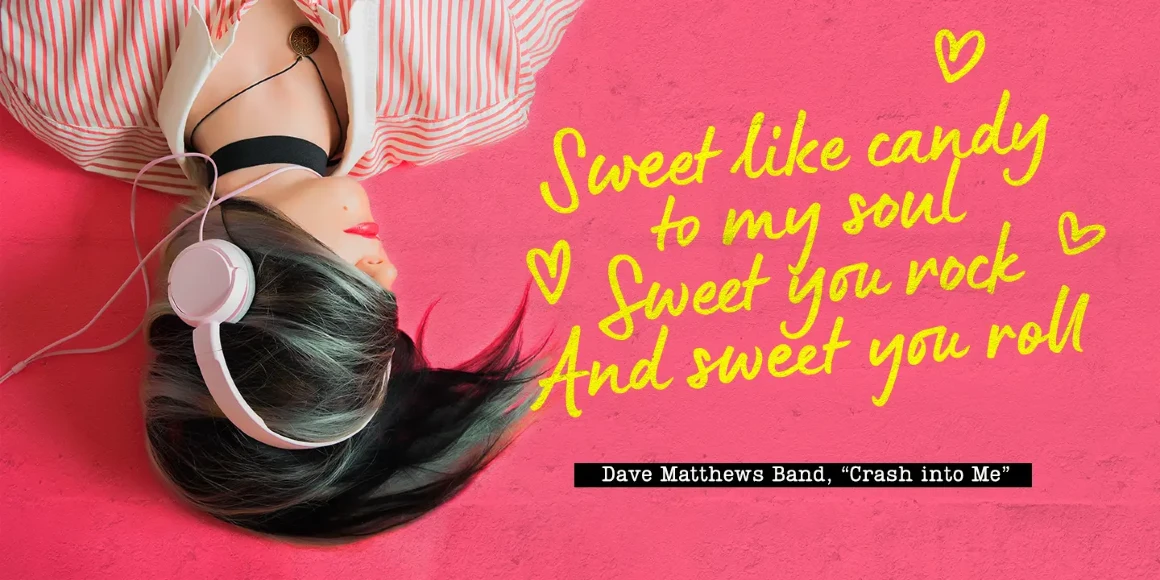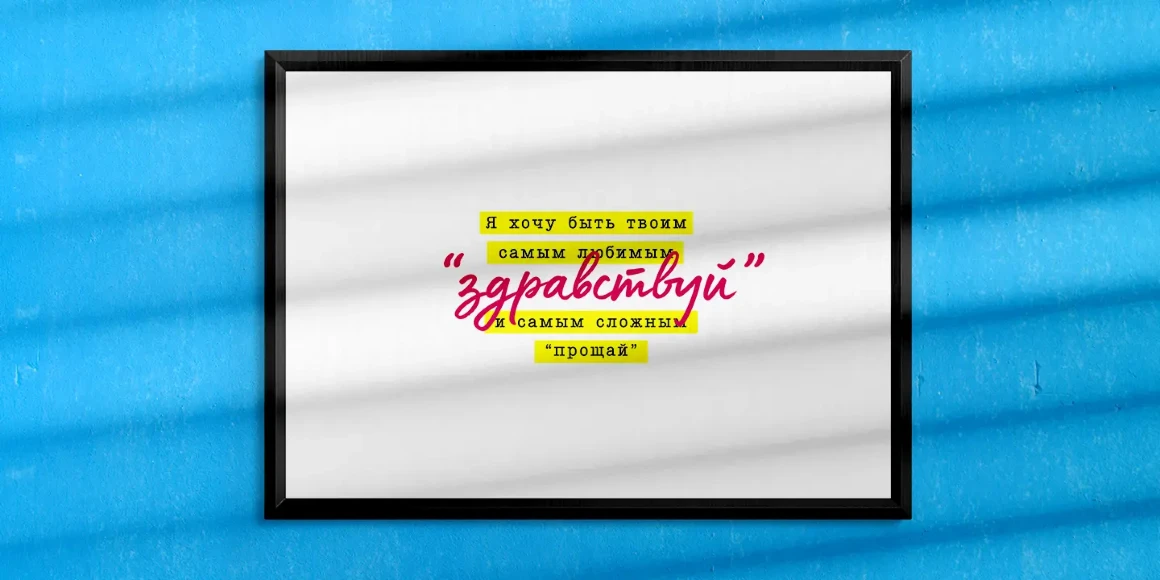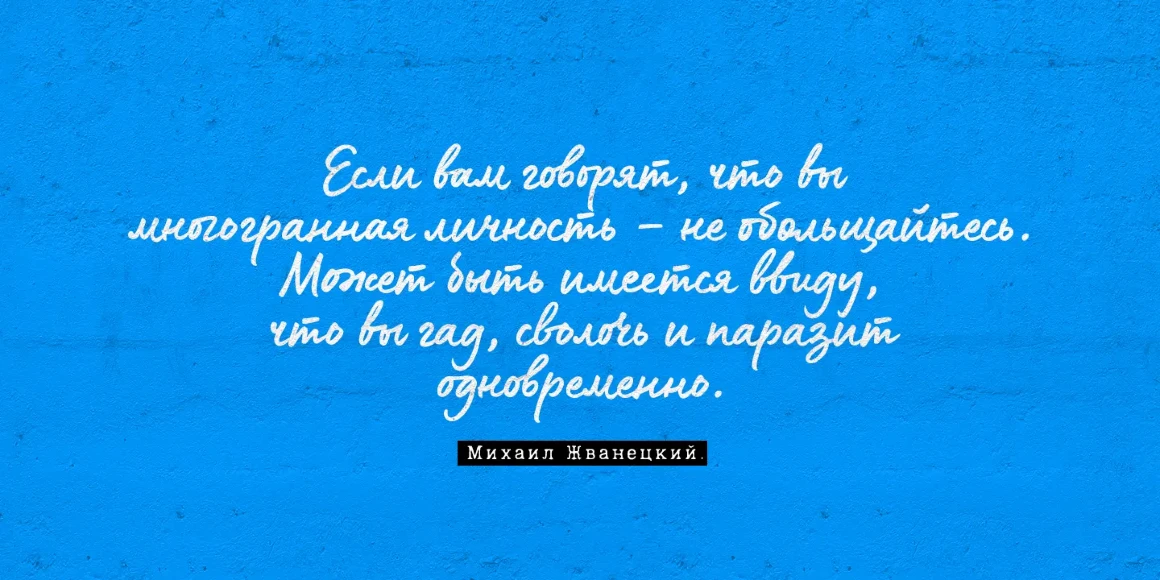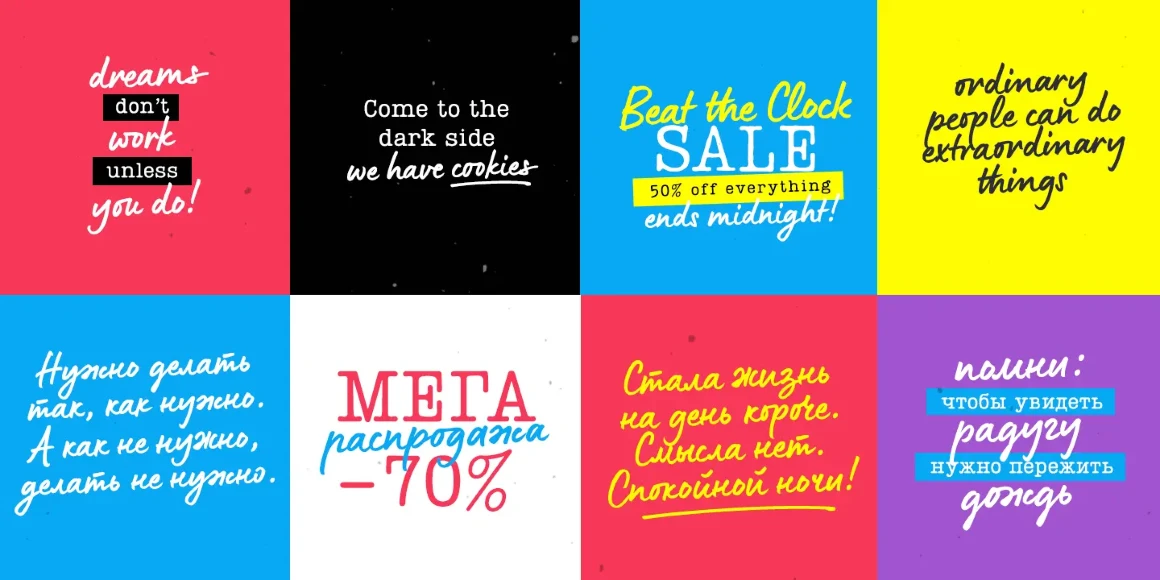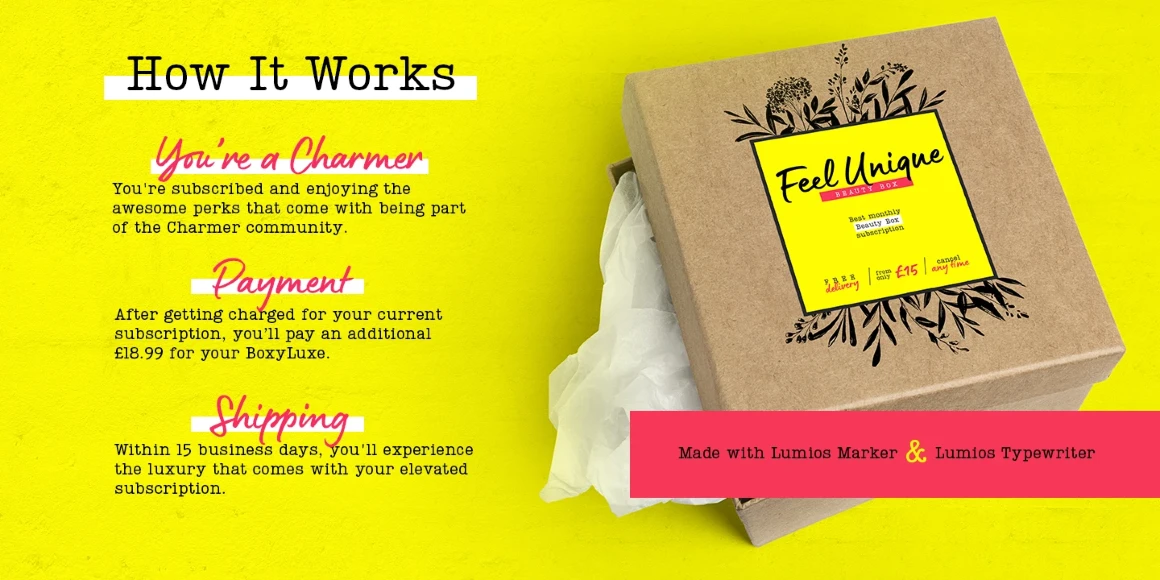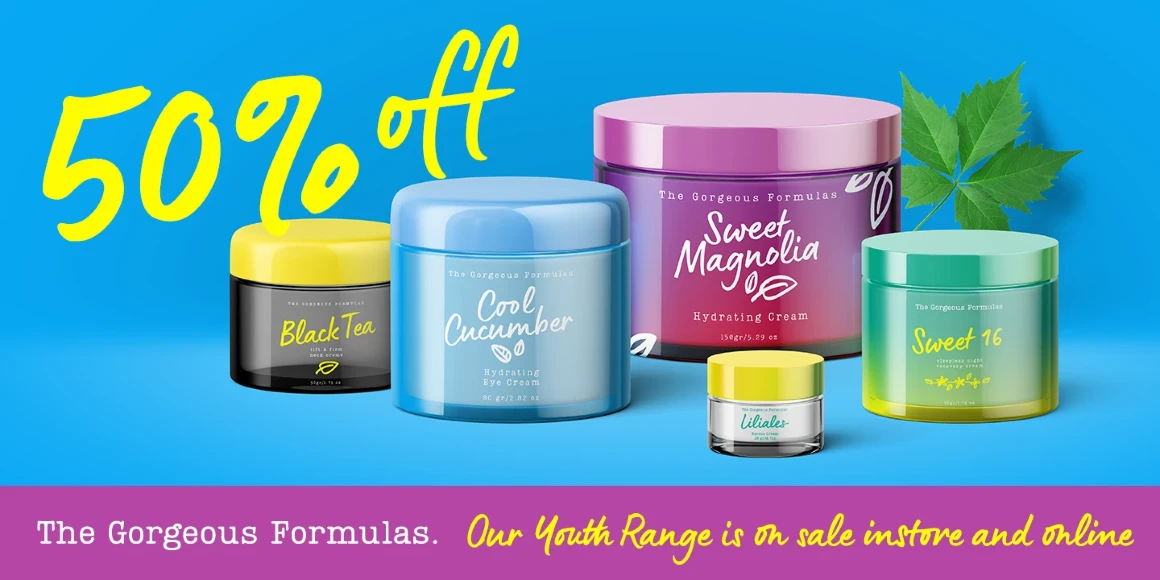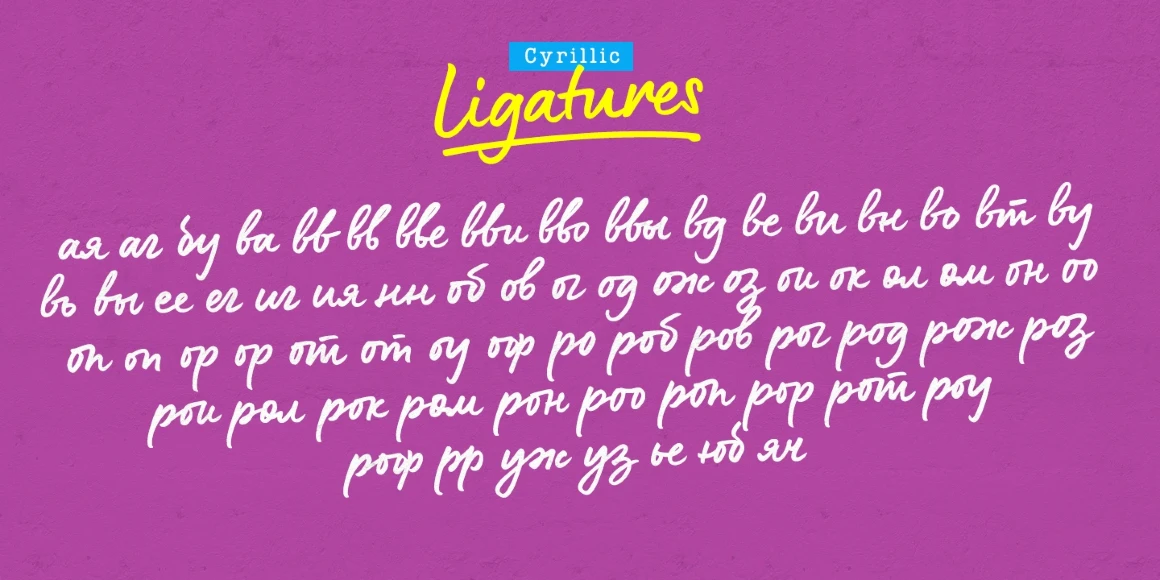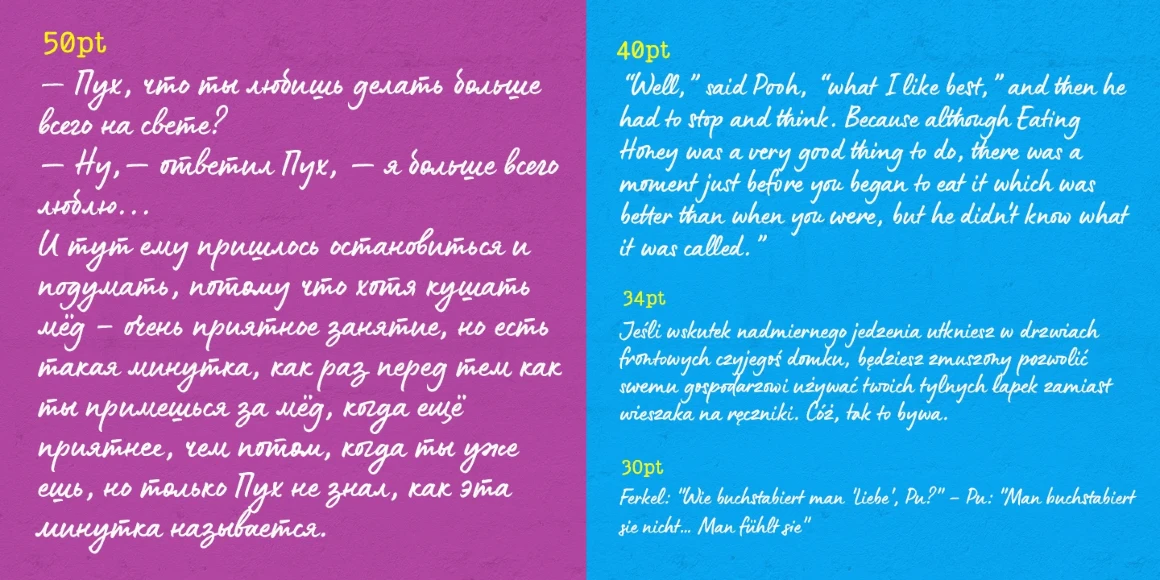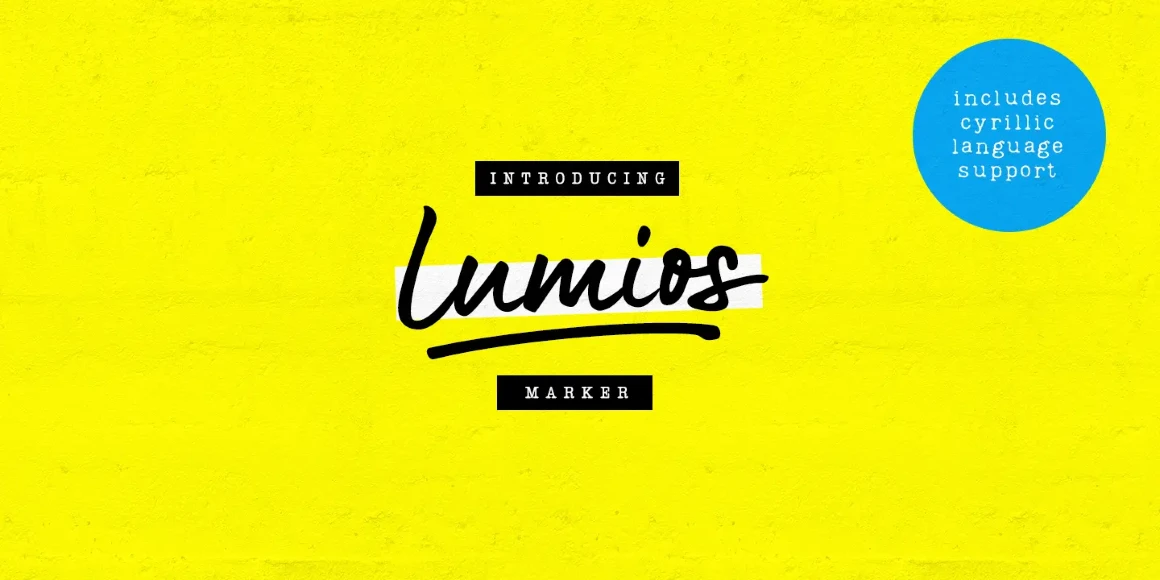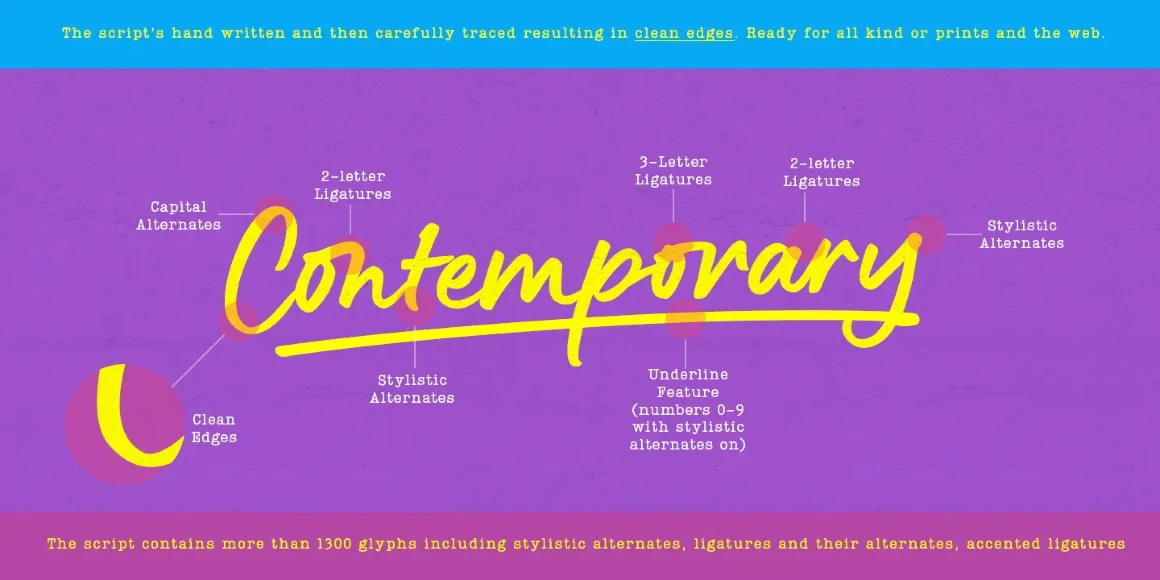
Lumios Marker
By Elena Genova
Lumios Marker is a freehand casual script in the Lumios family. It was written using a Pilot Sign Pen, allowing smooth movement and clean edges. Like Lumios Brush, this Marker sibling is multilingual with Latin and basic Cyrillic support. The use can be enhanced with oodles of ligatures and alternates, giving your words a more spontaneous, authentically lettered look. There are also Design Elements to add stylistically matching, illustrative detail to any of your projects.